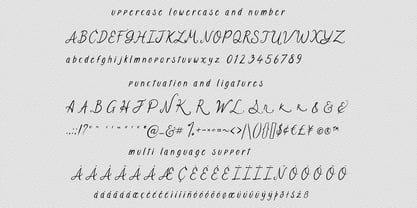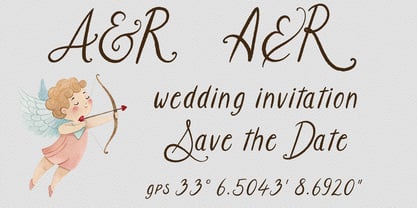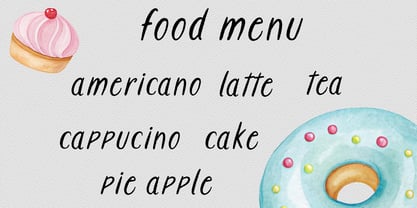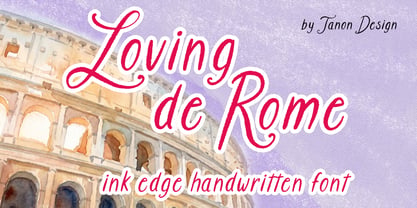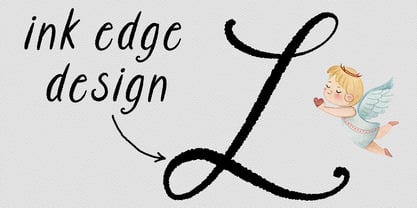
Loving De Rome
by Tanon Design
The Loving De Rome Font Family was designed by Tanonnat Kaeoket and published by Tanon Design. Loving De Rome contains 1 styles. More about this family
"Fall in love with Loving de Rome—a stunningly realistic handwritten font featuring beautifully textured ink edges. Designed to mimic the natural flow and slight imperfections of real handwriting, it’s the perfect choice for adding an authentic, artisanal vibe to your work. Highly versatile, it looks absolutely fantastic on apparel, bespoke mug designs, invitations, digital art, and any creative project you can imagine."